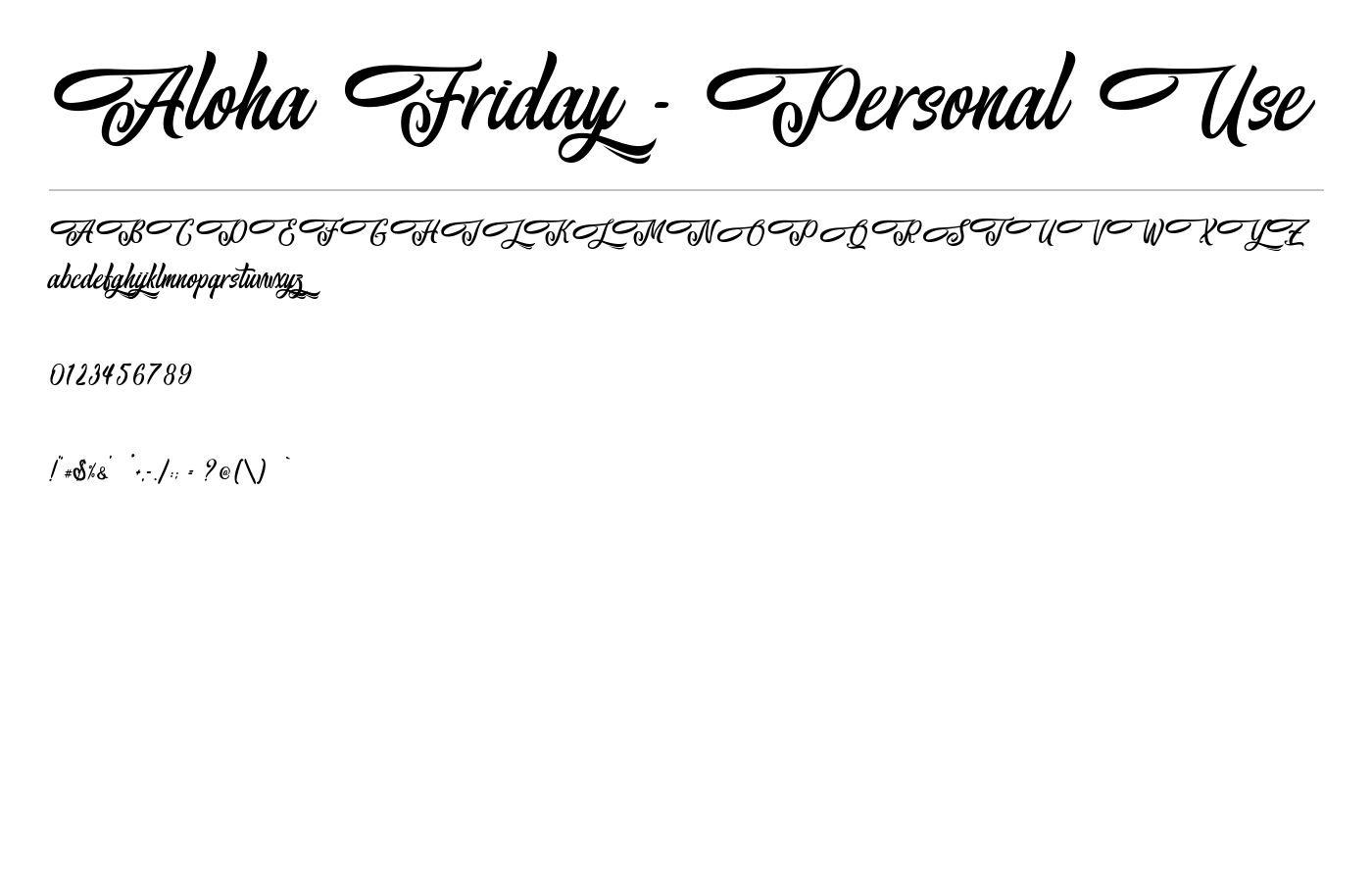
Aloha Friday is an elegant script font with smooth, flowing strokes and decorative flourishes that add a touch of sophistication. Its slender weight and graceful curves make it ideal for invitations, branding, and any design that calls for a stylish, personal feel. Perfect for luxury or creative projects, it conveys warmth and charm while maintaining readability in larger sizes.
Aloha Friday - Personal Use Font
About Aloha Friday - Personal Use Font